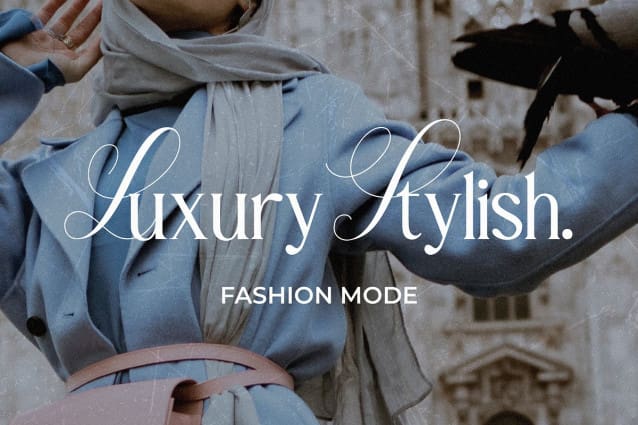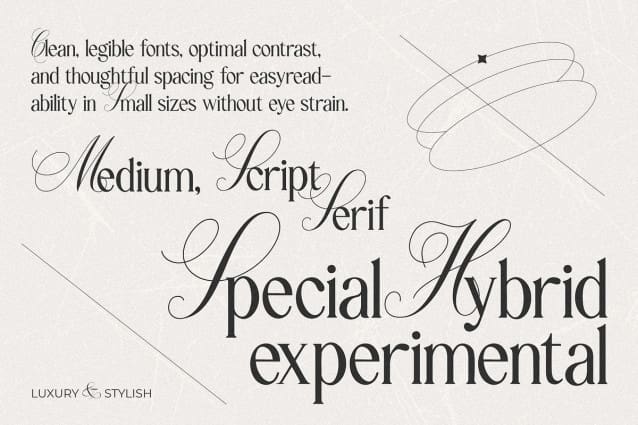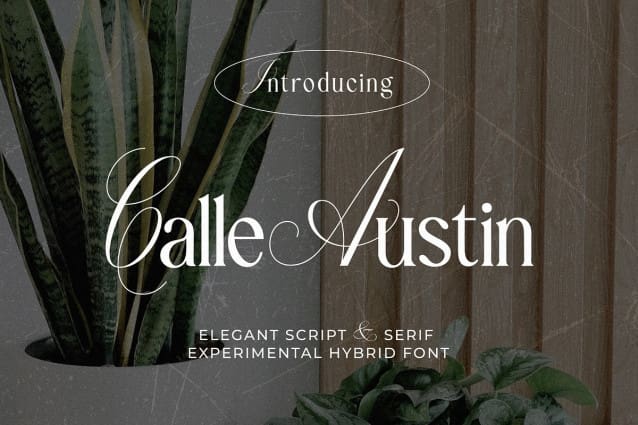
Calle Austin Font
Calle Austin Font is an avant-garde font that seamlessly fuses the elegance of script style in uppercase with the sophistication of serif style in lowercase. Tailored for advertising, magazines, social media posts, and beauty product branding, this font introduces a contemporary and refined touch to any design.
FEATURES:
Uppercase : Script – Uppercase letters are meticulously crafted in a beautiful and impactful script style.
Lowercase : Sans Serif – Lowercase letters showcase a serif style, bringing a formal and tidy aesthetic.
Punctuation and Marks – A variety of punctuation and marks are available, providing flexibility in design composition.
Symbols – The font comes equipped with a range of symbols to support diverse design elements.
Multilingual Support: – CalleAustin includes multilingual support, making it versatile for designs in various languages.
Calle Austin is the perfect choice for designers seeking to highlight beauty and functionality in typographic design. With its unique combination of script and serif, the font adds an exclusive flair to every project while catering to a global audience with its multilingual capabilities.